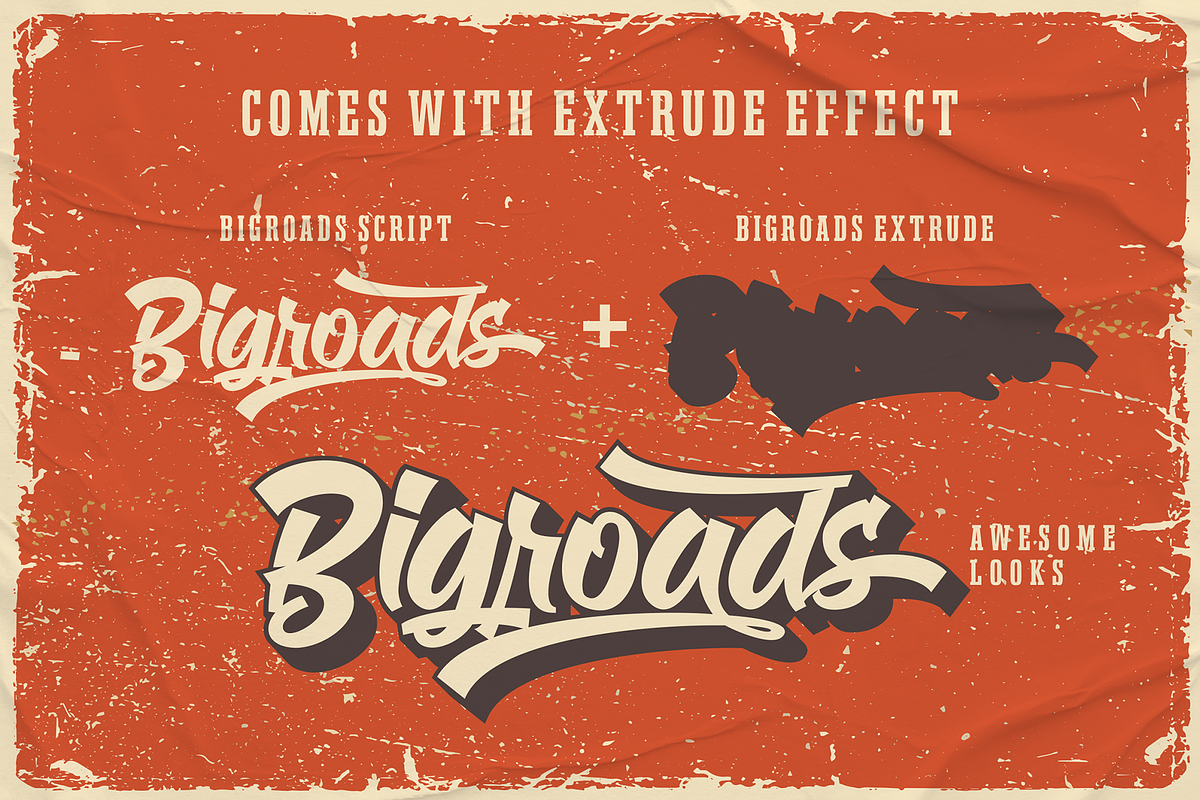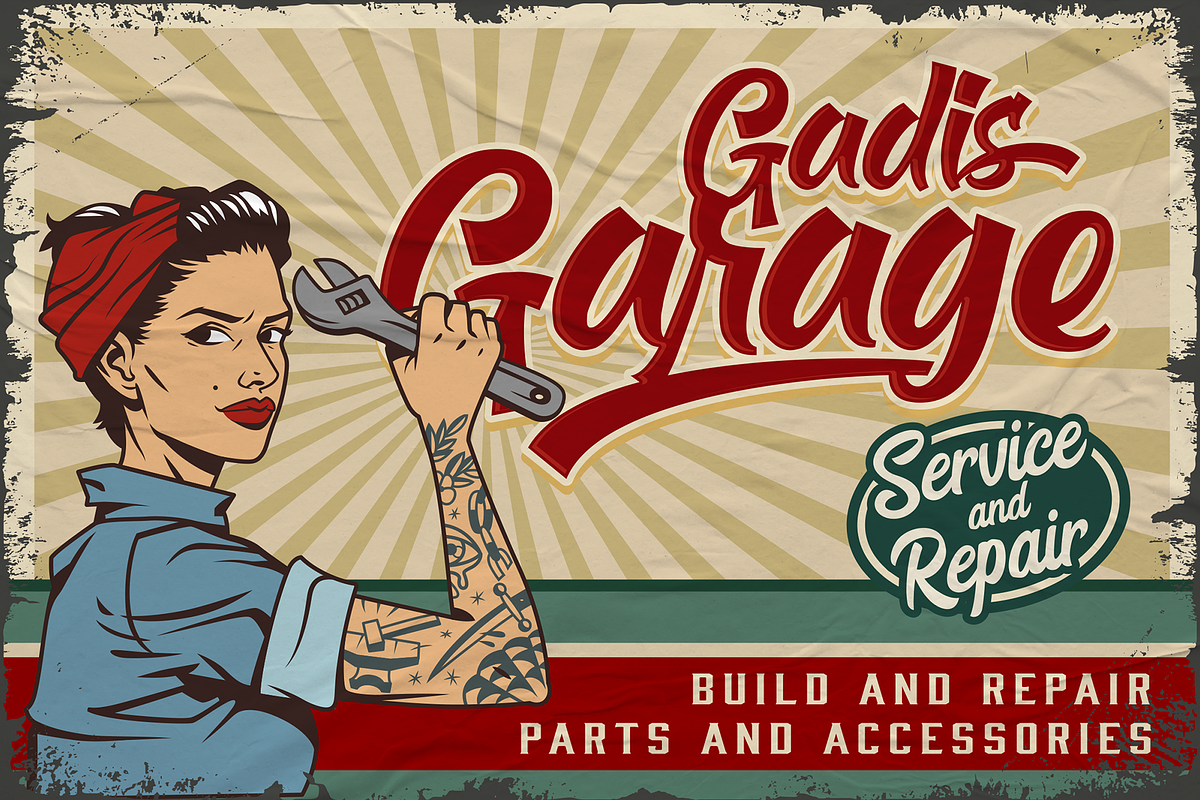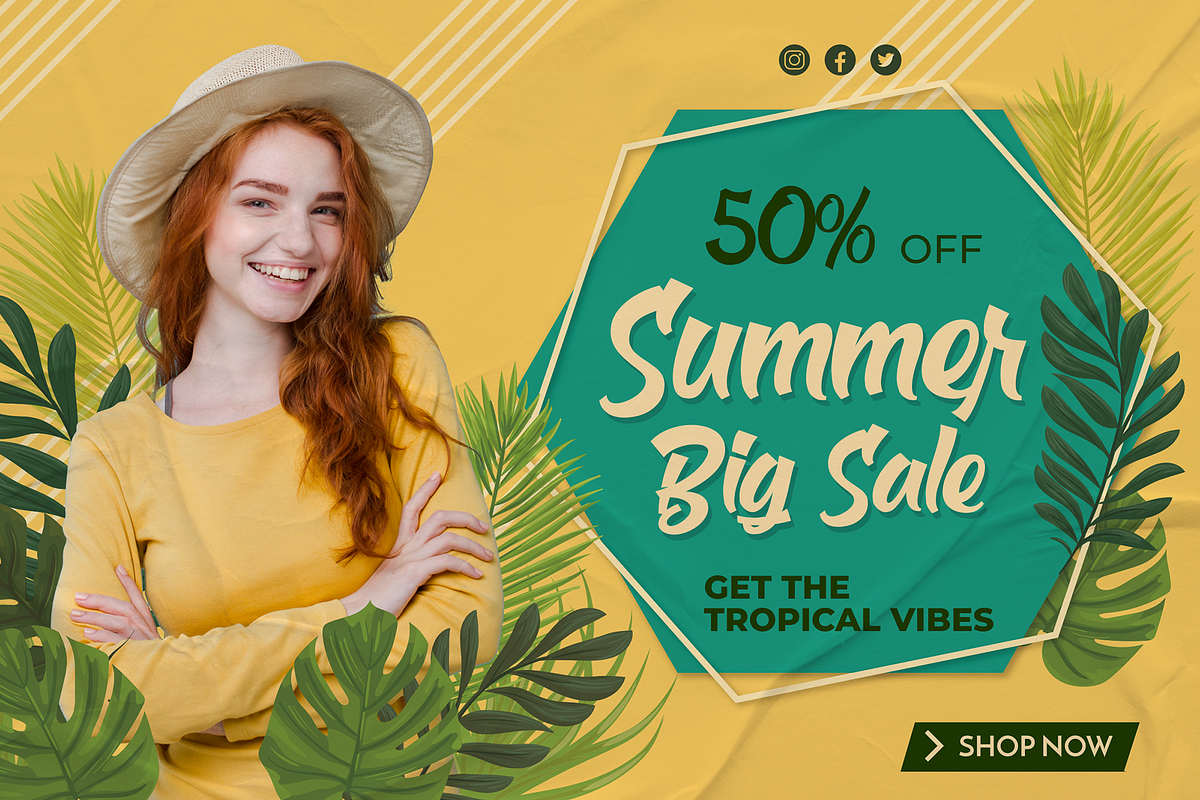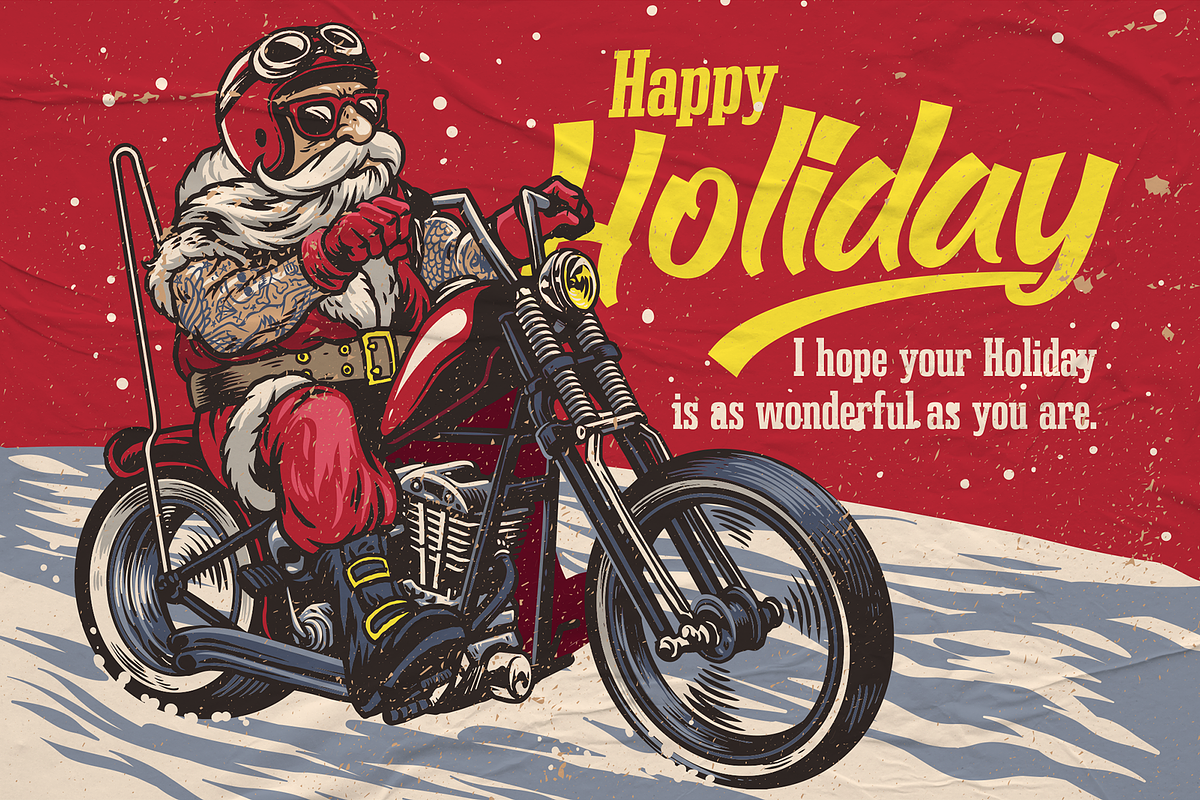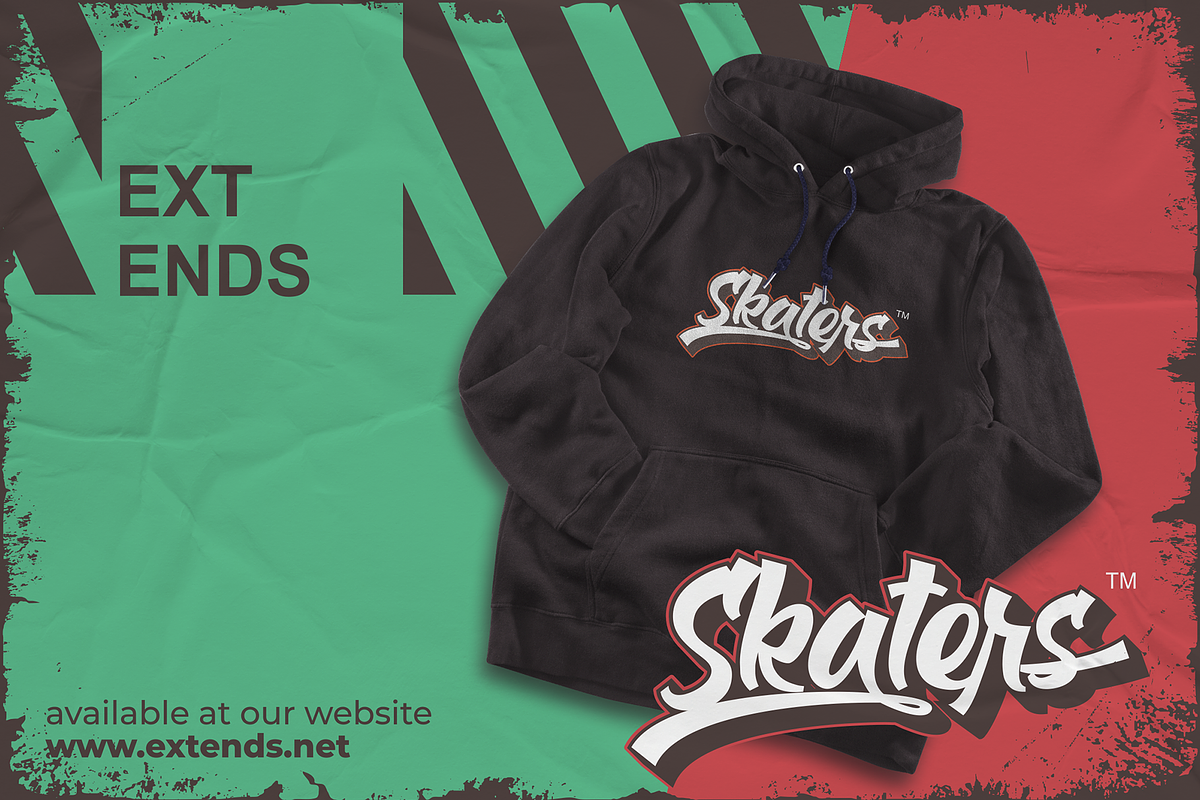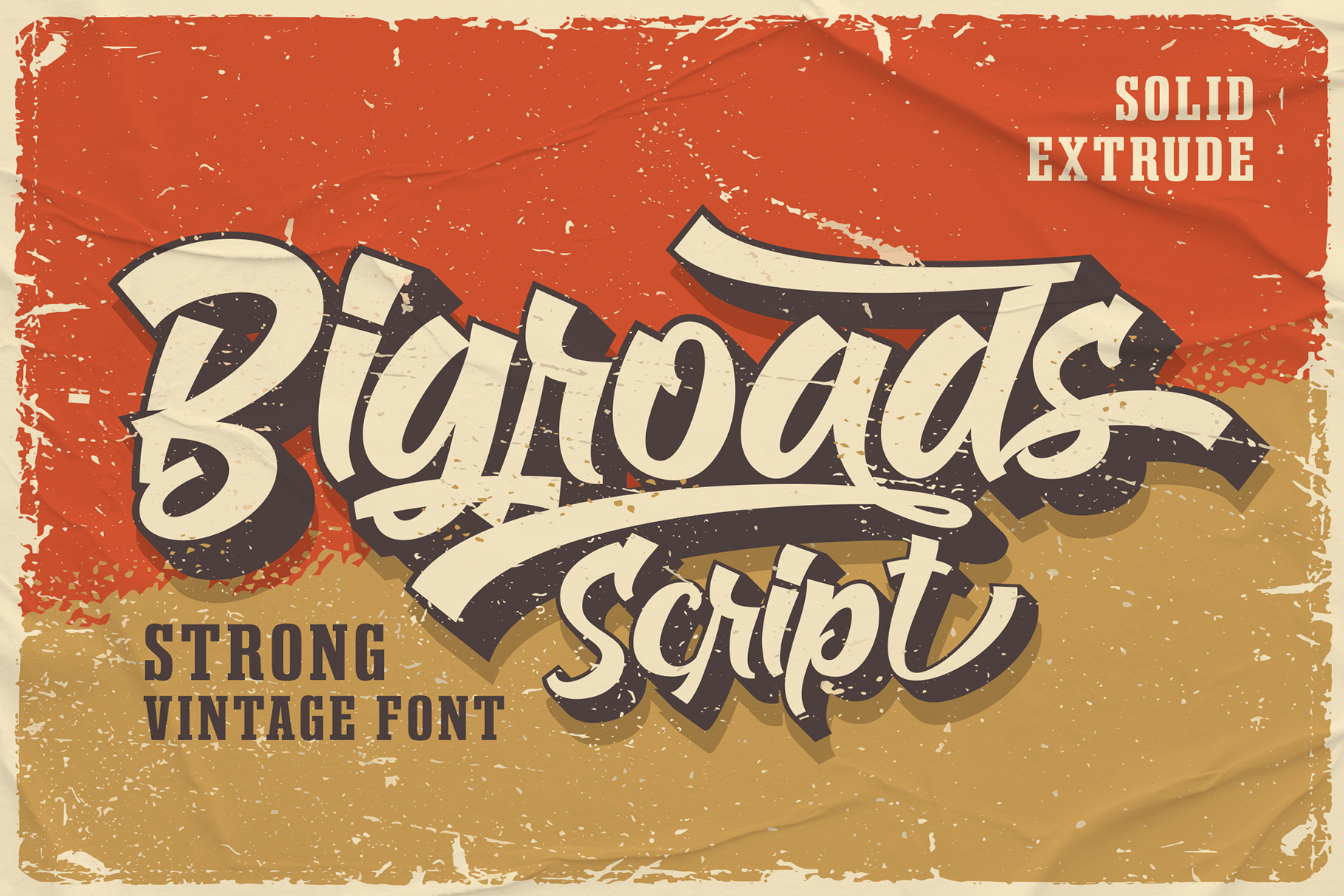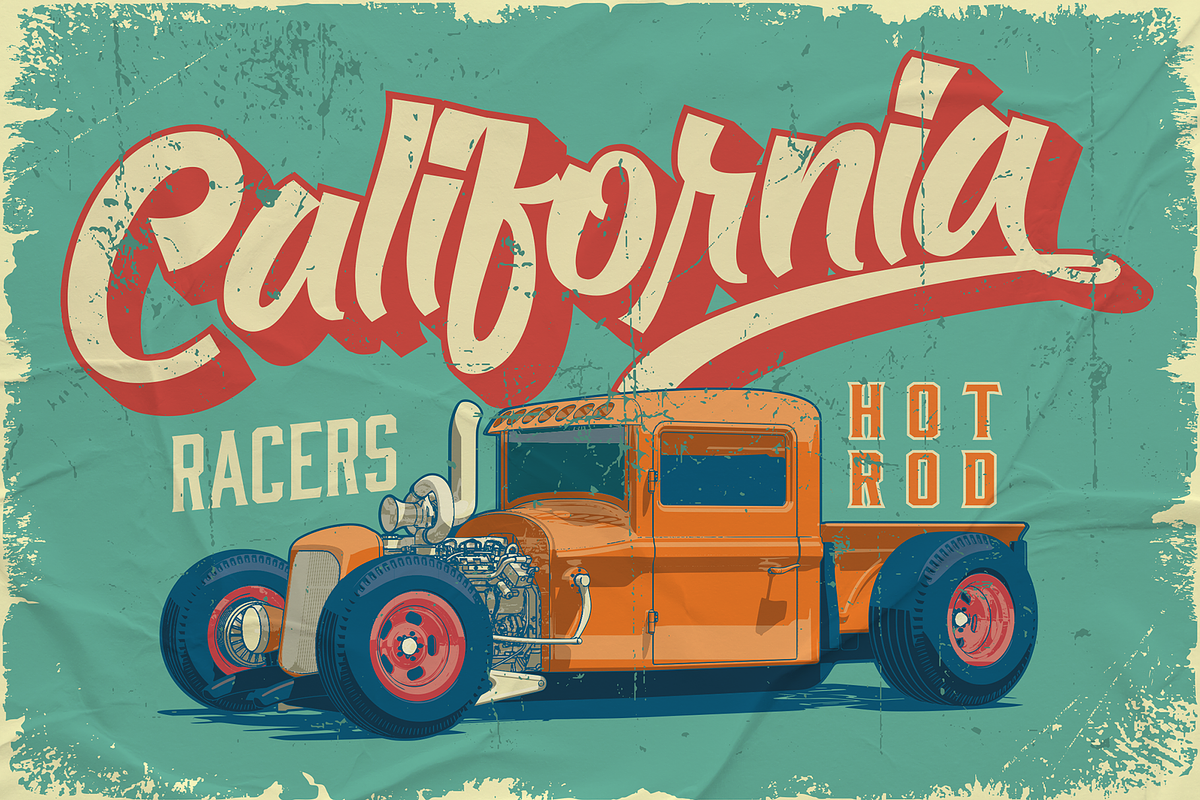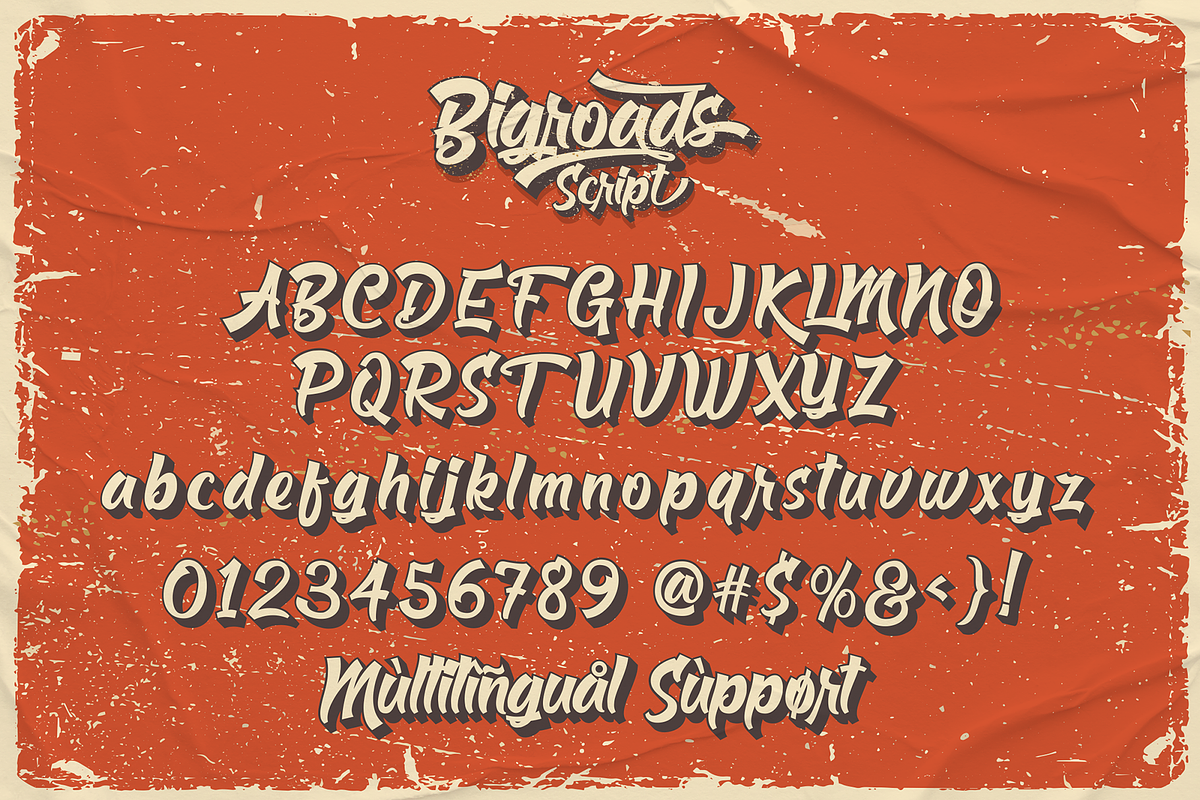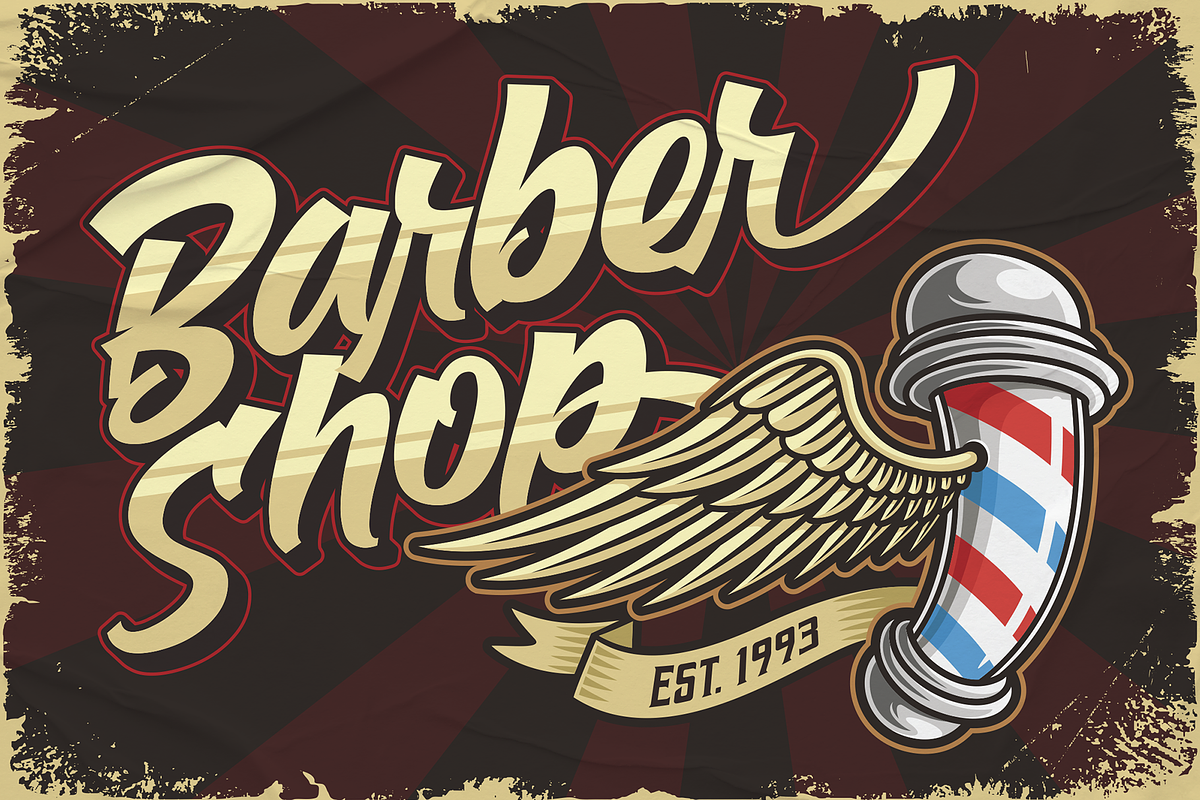
Bigroads Script - Retro Font
Bigroads Script is a layered bold script with extruding, inspired by a Retro aesthetic. Made in combination with hand lettering, it comes with dramatic movement and it’s great for any next creative project that needs a retro vibe or modern touch.
Ideal for logos, handwritten quotes, product packaging, header, poster, merchandise, social media & greeting cards.
- Stylistic Alternate
- Stylistic Set
- Multilanguage Support